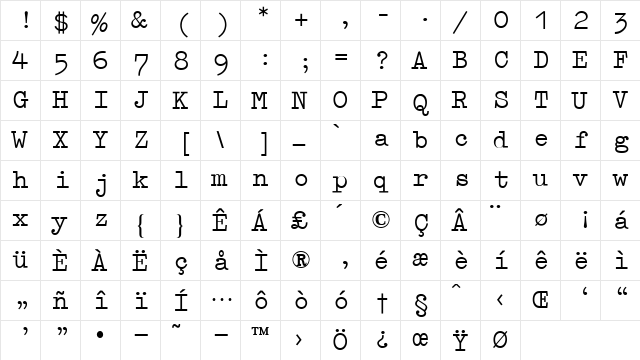
Schreibmaschinenschrift BQ Roman
Design Context for Schreibmaschinenschrift BQ Typeface
Schreibmaschinenschrift BQ offers clean, dependable letterforms without strong stylistic allegiance, making it a practical choice for designers who need flexibility.